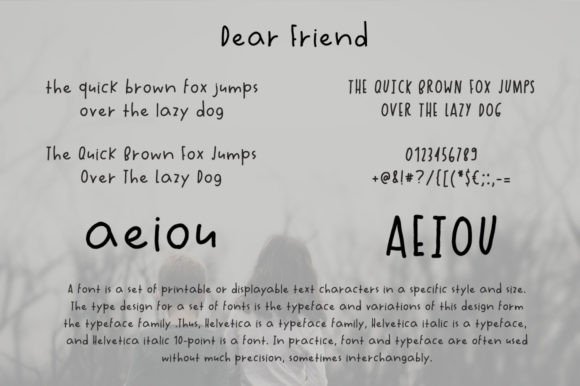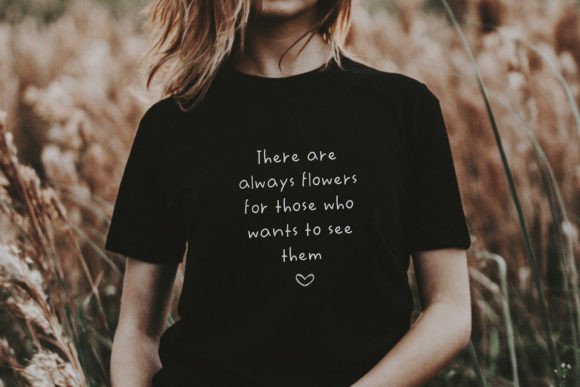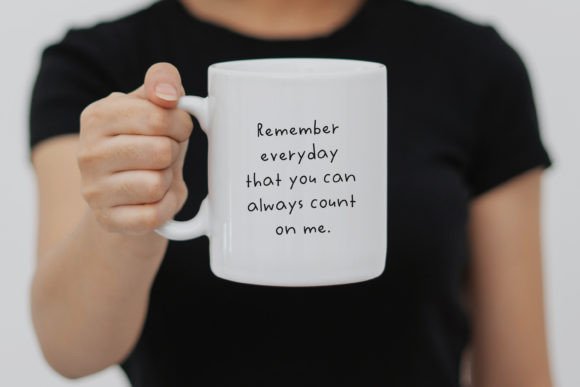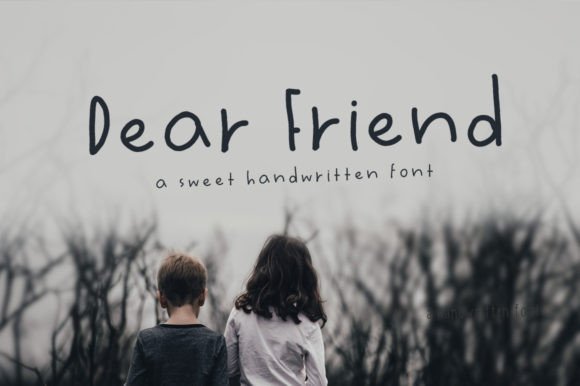
Introducing Dear Friend Font: The Ultimate Cute Handwritten Font for Designers and Crafters
Are you a designer, crafter, or social media enthusiast looking for a font that adds a personal touch to your projects? Look no further than the Dear Friend Font, a charming handwritten font ideal for creating quotes, social media posts, greeting cards, and more. With its cute and playful style, this font is sure to make your designs stand out.
What is Dear Friend Font?
Dear Friend Font is a carefully crafted handwritten font that exudes warmth and friendliness. Its unique and quirky style makes it perfect for a wide range of design projects, from digital graphics to print materials. Whether you’re creating content for social media, crafting personalized gifts, or designing marketing materials, this font is sure to bring a smile to your audience’s faces.
Key Features of Dear Friend Font
• Complete Character Set: The Dear Friend Font includes all uppercase and lowercase characters, numbers, and punctuation, giving you everything you need to create beautiful and cohesive designs.
• Cute Handwritten Style: The font’s handwritten style is both playful and elegant, making it perfect for a wide range of design projects.
Uses for Dear Friend Font
The Dear Friend Font is incredibly versatile and can be used for a wide range of design projects, including:
• Quotes: Create inspiring and motivational quotes to share on social media or use in your designs.
• Social Media Posts: Add a personal touch to your social media posts and make them stand out from the crowd.
• Greeting Cards: Create personalized greeting cards for special occasions, such as birthdays, holidays, and weddings.
• T-Shirts and Mugs: Design custom apparel and accessories with the Dear Friend Font for a unique and personalized look.
• Stickers and Totes: Create custom stickers and tote bags with the Dear Friend Font for a fun and playful design.
Why Choose Dear Friend Font?
With so many fonts available, why choose the Dear Friend Font? Here are just a few reasons:
• Unique Style: The Dear Friend Font has a unique and distinctive style that sets it apart from other fonts.
• High-Quality: The font is carefully crafted to ensure high-quality and clear text, even at small sizes.
• Easy to Read: The font is designed to be easy to read, making it perfect for use in a wide range of design projects.
Tips for Using Dear Friend Font
Here are a few tips for getting the most out of the Dear Friend Font:
• Experiment with Colors: Try pairing the Dear Friend Font with different colors to create a unique and eye-catching design.
• Mix and Match: Combine the Dear Friend Font with other fonts to create a unique and interesting design.
• Keep it Simple: Don’t be afraid to keep your design simple and let the Dear Friend Font be the star of the show.
The Dear Friend Font is a versatile and charming handwritten font that’s perfect for designers and crafters looking to add a personal touch to their projects. With its complete character set, cute handwritten style, and ease of use, this font is sure to become a favorite in your design toolkit. So why wait? Download the Dear Friend Font today and start creating beautiful and unique designs that will delight your audience.